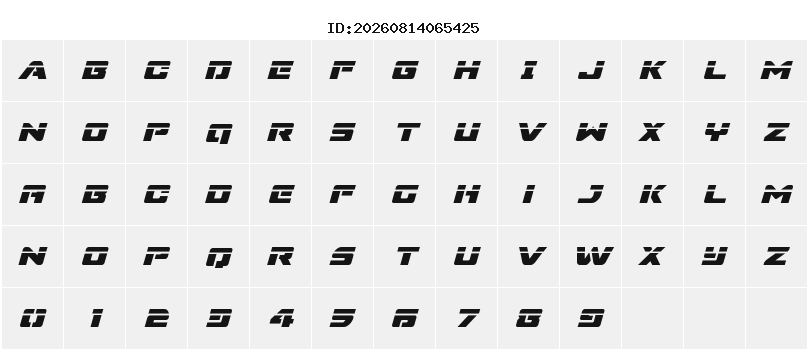
Super Commando Laser Italic.ttf is a modern, elegant sans-serif font designed for ultimate readability and visual harmony. Perfect for branding, headlines, web design, and print materials.